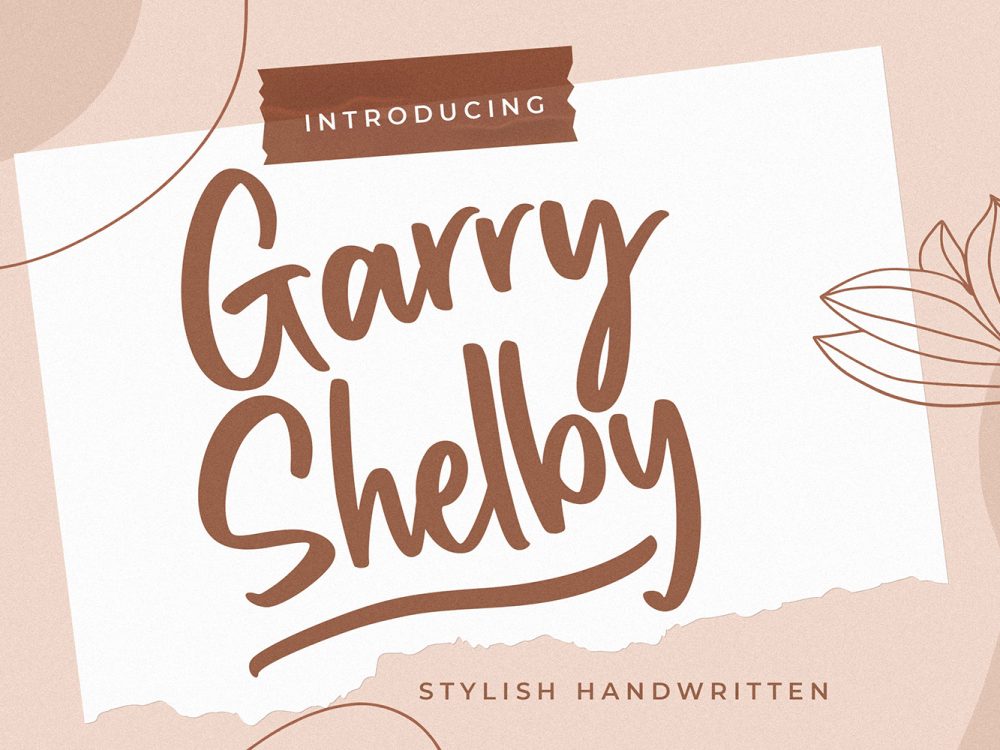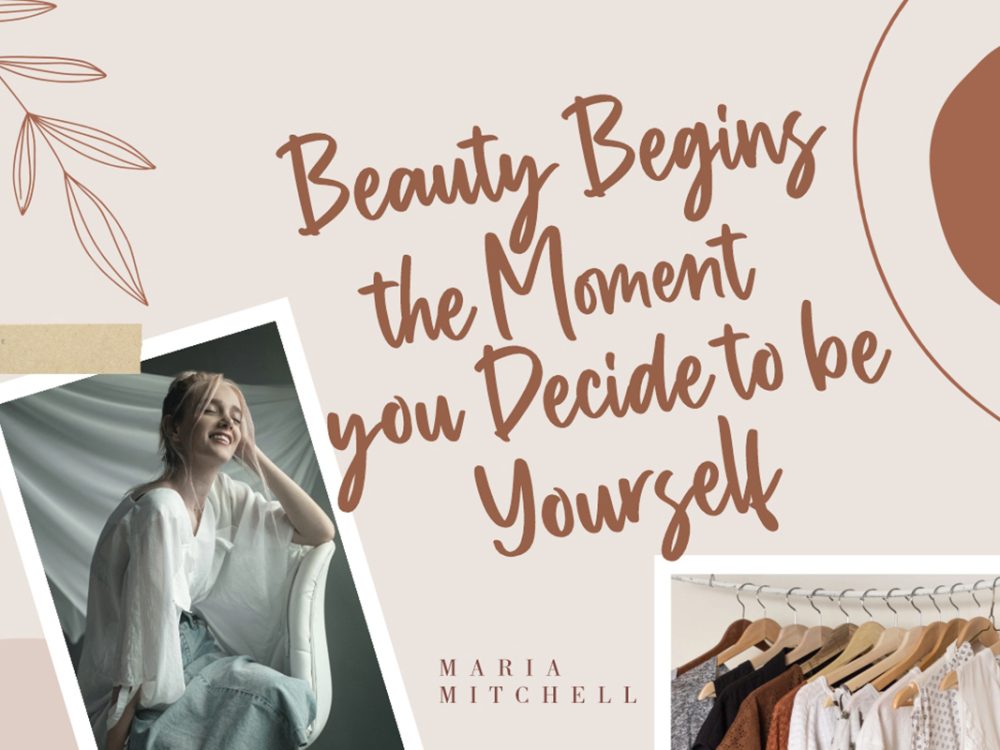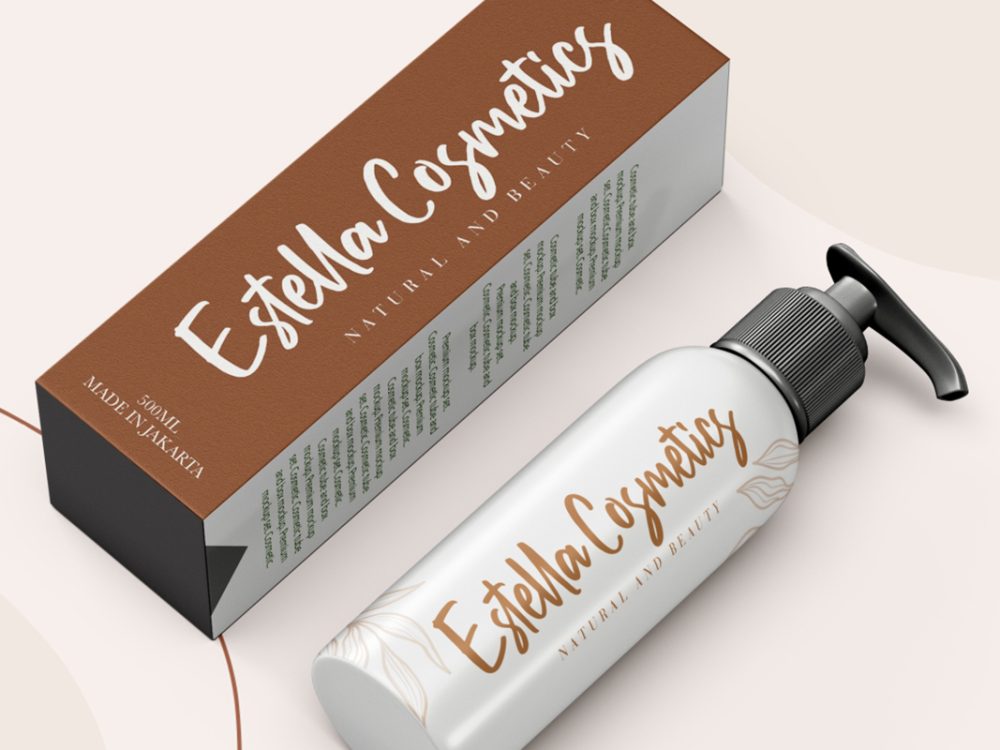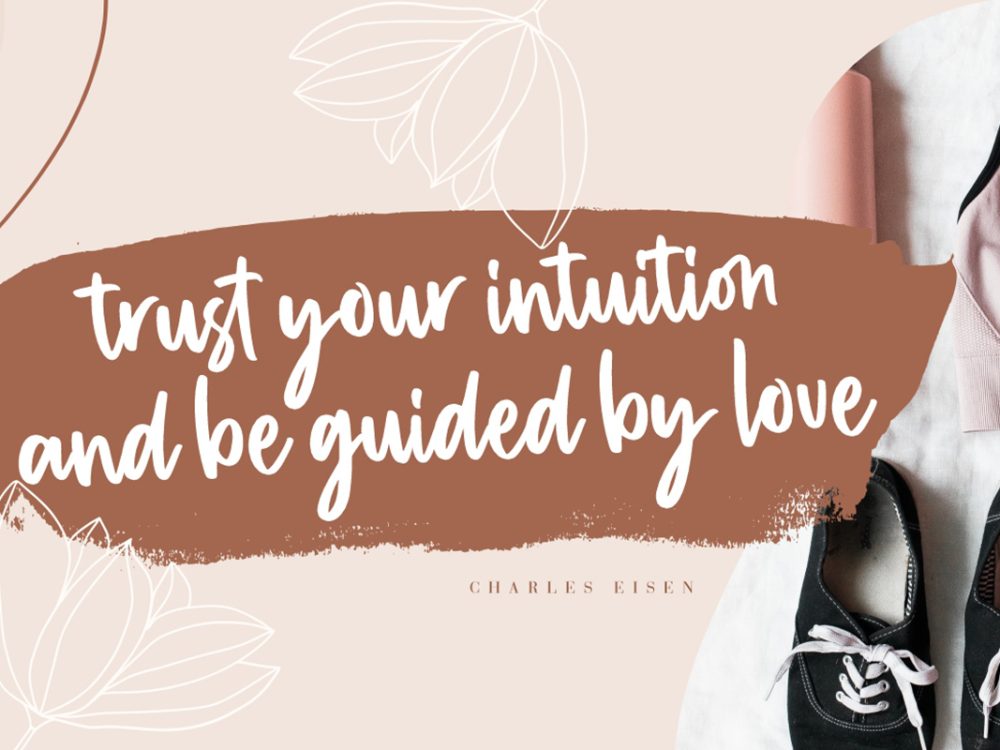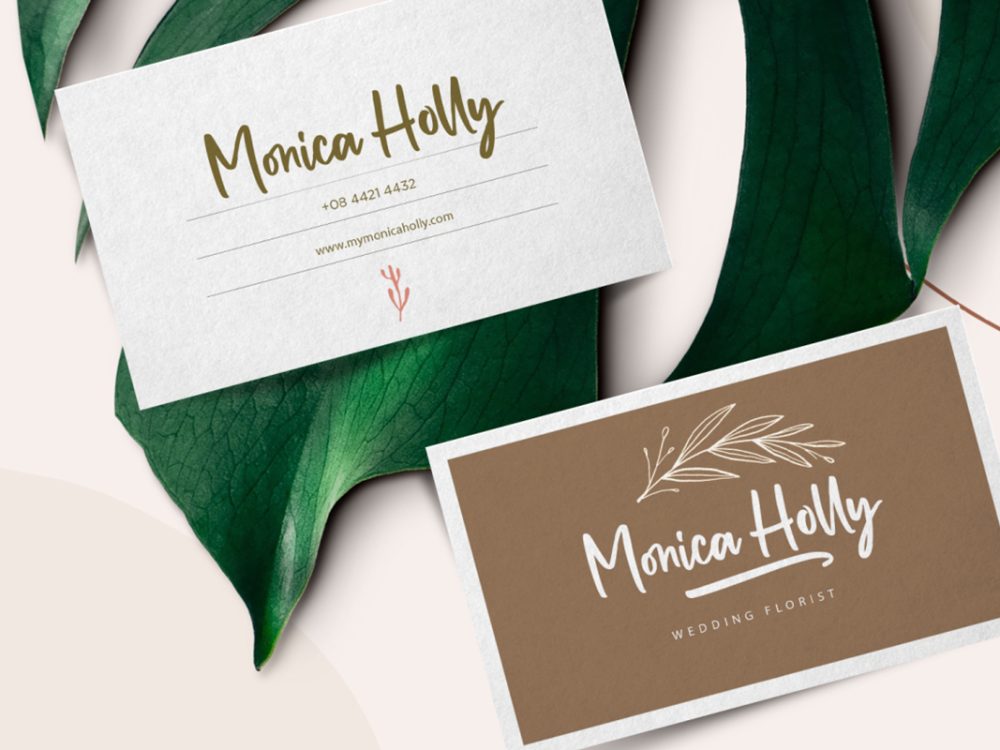
Meet Garry Shelby Free Font, the embodiment of casual and stylish handwritten font that effortlessly enhances your projects, giving them an awesome touch. This font is tailor-made for a wide range of creative endeavors, including branding projects, logos, wedding designs, captivating social media posts, eye-catching advertisements, appealing product packaging, enticing product designs, labels, photography enhancements, watermarking, invitations, and elegant stationery. Whether you’re seeking a handwriting touch for any project, Garry Shelby is the perfect choice. Elevate your designs with Garry Shelby’s irresistible charm, making your creations stand out with flair and sophistication. If you like it don’t forget to check out the full version.